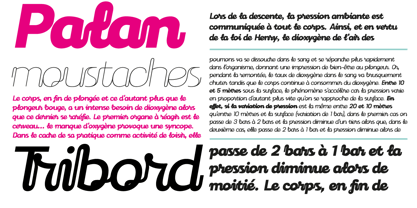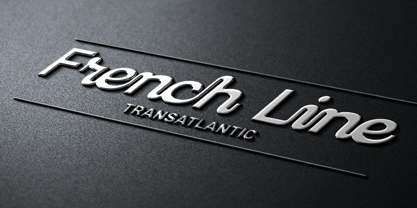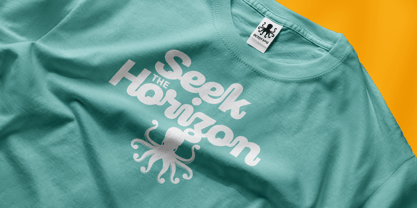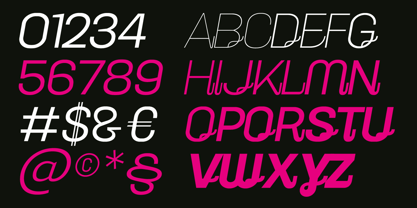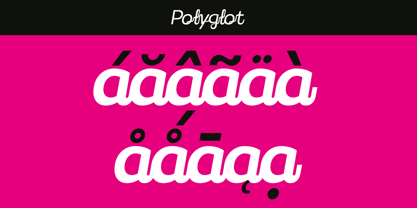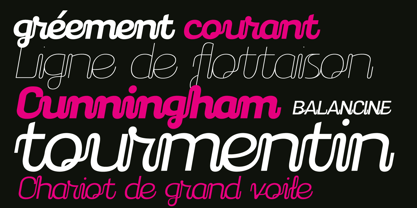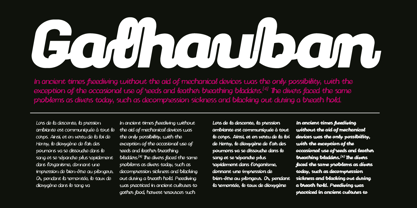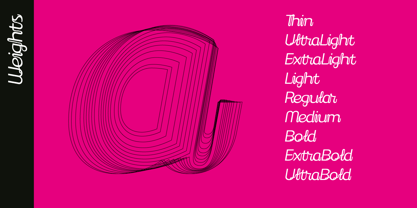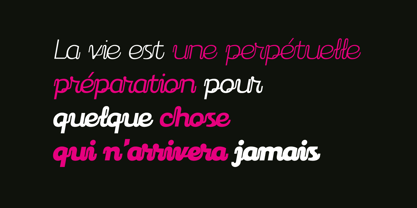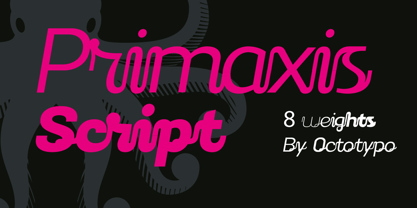
Primaxis Script
by Octotypo
The Primaxis Script Font Family was designed by Julien Janiszewski and published by Octotypo. Primaxis Script contains 9 styles and family package options. More about this family
Primaxis Script is the cursive variation of the Primaxis type family, specifically designed for headlines and logo creation. Its slanted handwritten style offers fluidity and elegance through harmonious letter connections and subtle contrast, ensuring excellent legibility at display sizes. It excels in display applications: logos, headlines, and packaging. Its dynamic character creates immediate visual impact while bringing a distinctive and memorable signature to your creative projects.